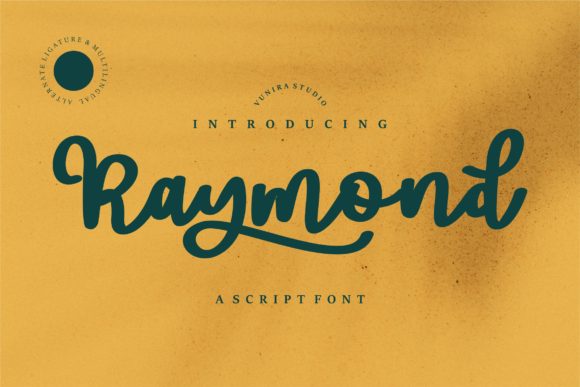
Welcome to the realm of Raymond Font, where elegance and charm intertwine to create a masterpiece that will transform your creative visions into breathtaking realities. Raymond Font is not just a font; it's an experience that will awaken your imagination and transport you to a world of beauty and inspiration.
Crafted with meticulous attention to detail by the renowned font artist Vunira, Raymond Font is a script font that exudes timeless grace and sophistication. Its fluid strokes and delicate curves dance across the page, leaving a trail of enchantment in their wake. With Raymond Font, every word you write becomes a work of art, a reflection of your unique style and personality.
Step into the enchanting world of Raymond Font and discover a symphony of possibilities. Let your imagination soar as you explore the endless creative avenues that this font opens up. From elegant invitations to heartfelt love letters, from captivating social media posts to stunning logos and branding, Raymond Font is your perfect companion.
Unleash the power of Raymond Font and watch your words come alive with captivating beauty. Its versatility knows no bounds, making it the ideal choice for a wide range of design projects. Whether you're a seasoned graphic designer or a creative enthusiast, Raymond Font will elevate your work to new heights.